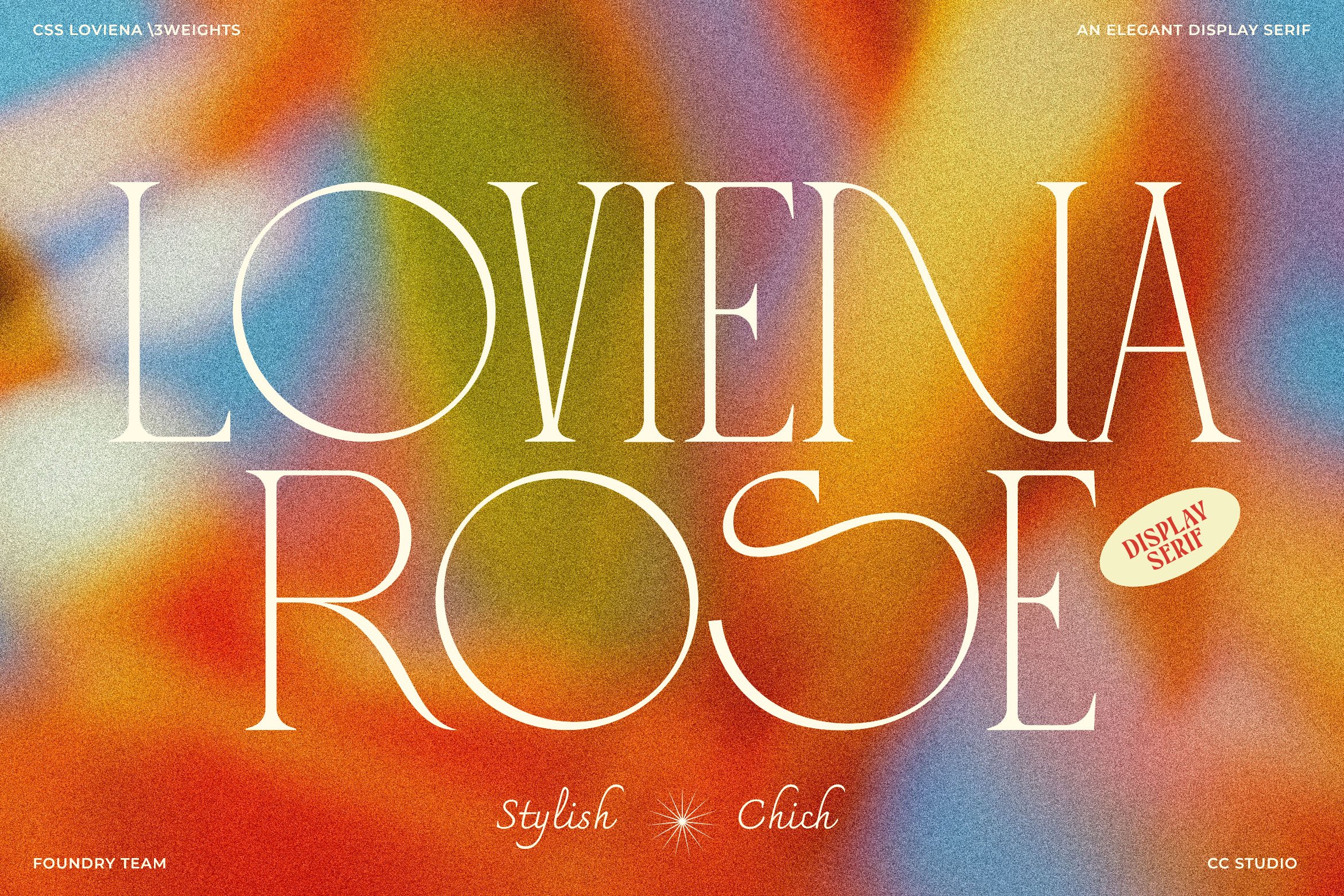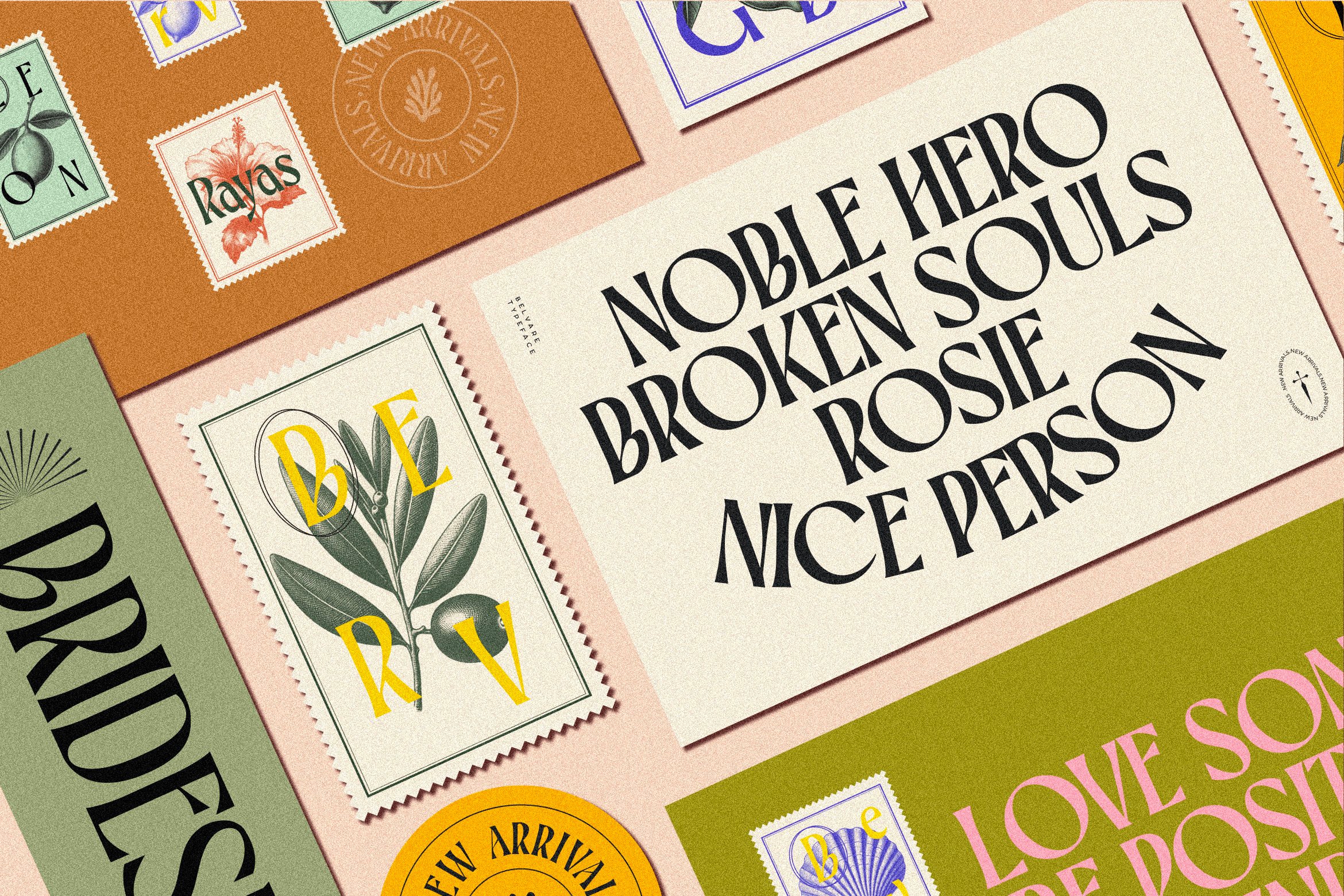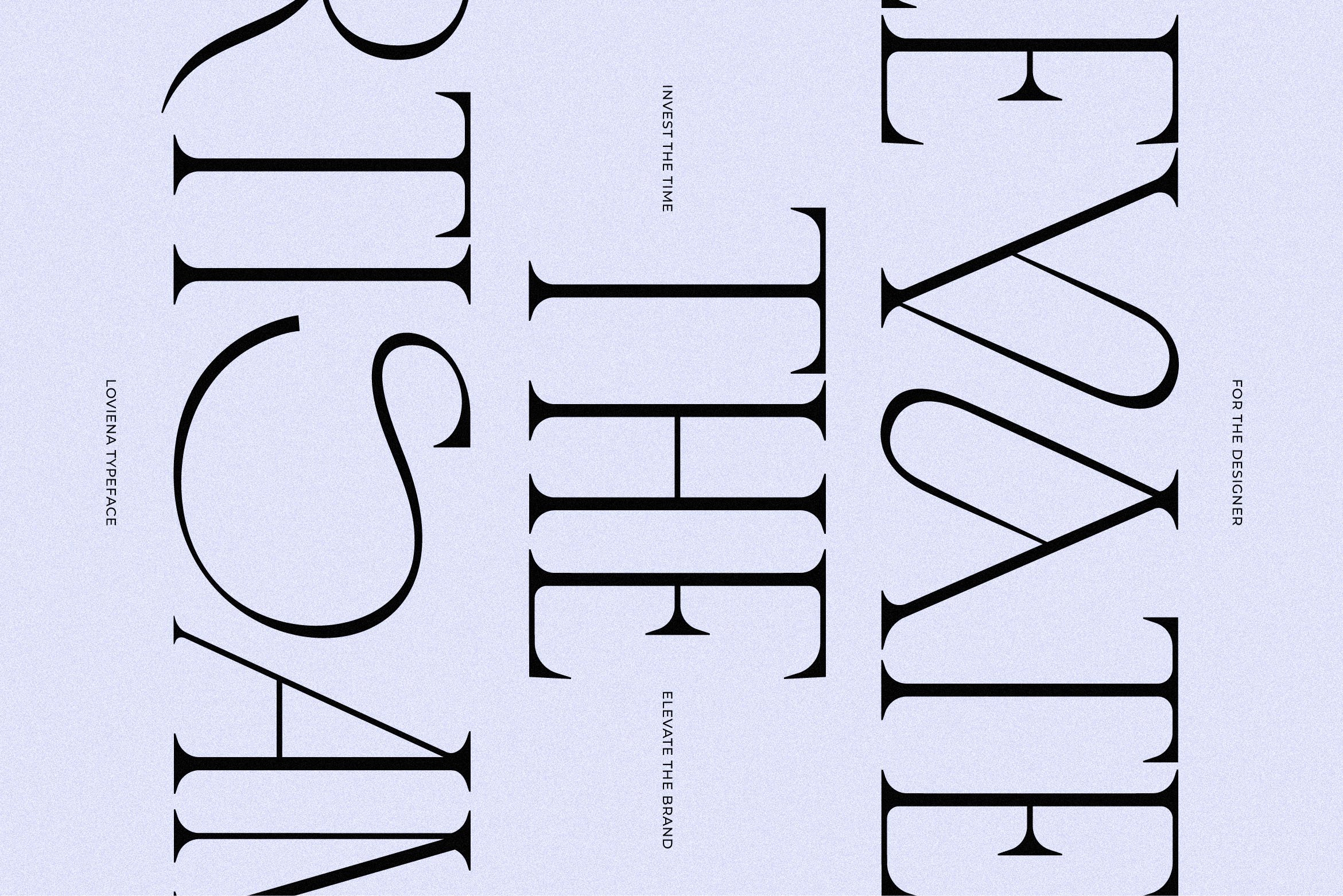
Belvare, a sophisticated retro-inspired Serif font that exudes timeless elegance. Its rounded letter proportions create a friendly and approachable feel, while the condensed glyphs and distinctive large, rounded O and C characters add a touch of unique character. A carefully curated selection of alternates further enhances the font's rhythmic and dynamic personality.
Loviena Display Serif, a font that embodies elegance with a playful twist. Designed in an all-caps style, Loviena offers a refined balance of classic sophistication and modern charm, evoking the luxurious feel of a tropical summer getaway. Perfect for designers seeking a timeless yet fun option to elevate their projects with a fresh, feminine flair.